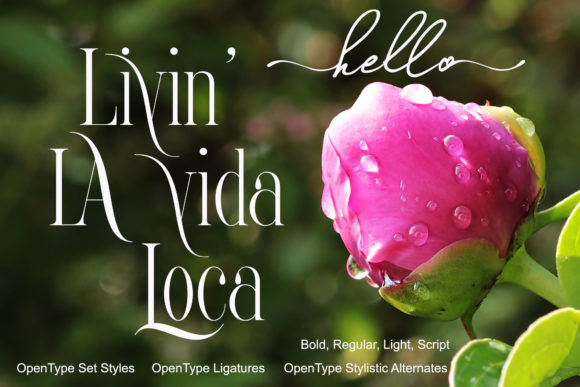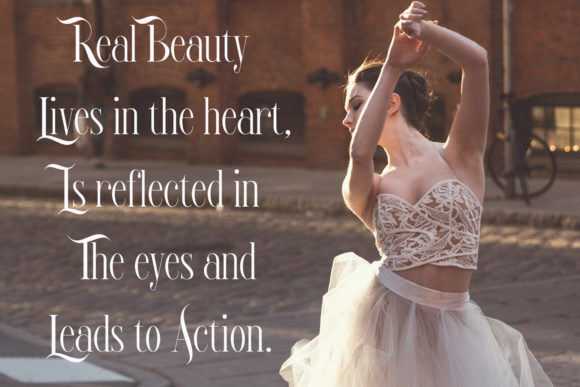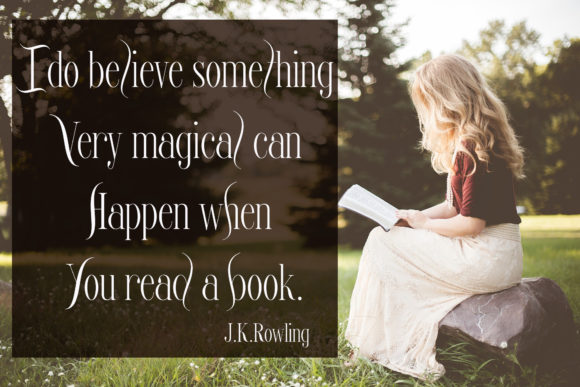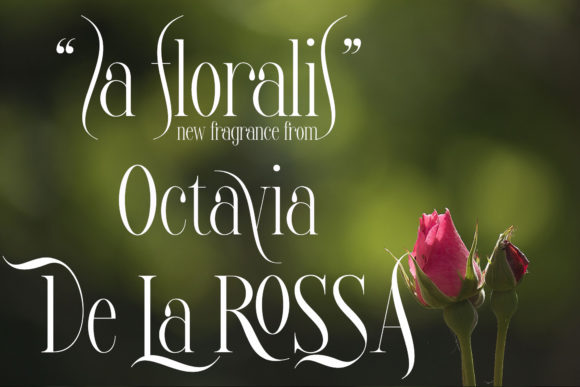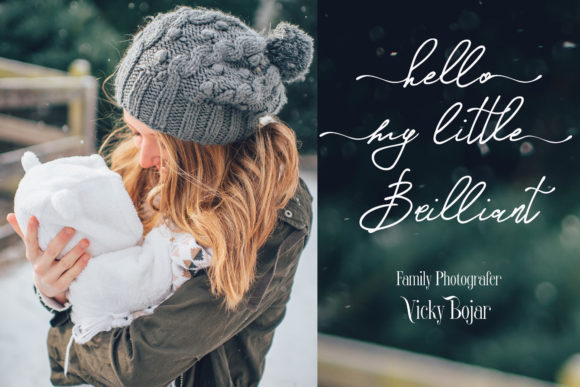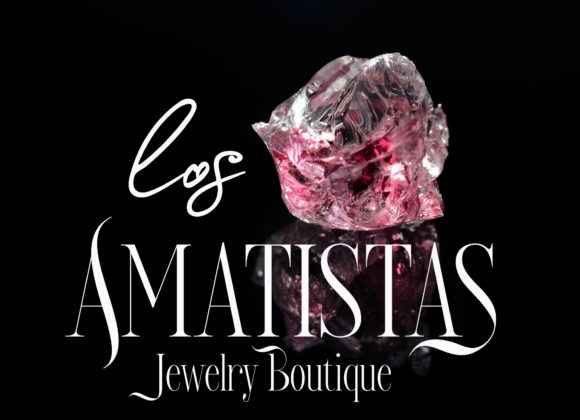
Introduction to La Belle Zabriella Duo Font
“La Belle Zabriella Duo is a lovely and luxurious duo font (serif and script).
It has a modern yet whimsical style and it will undoubtedly immerse your designs into a magical world This font is PUA encoded which means you can access all glyphs and swashes with ease.
Key Features of La Belle Zabriella Duo Font